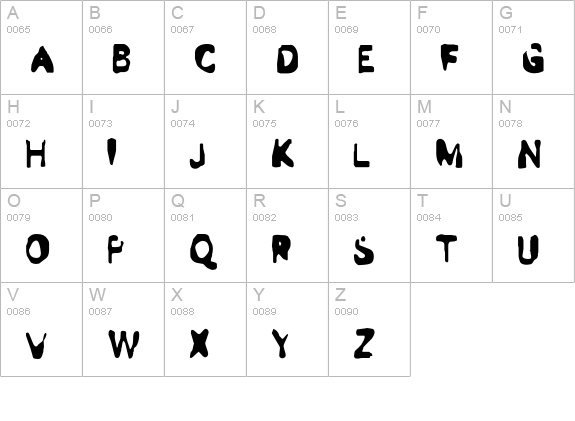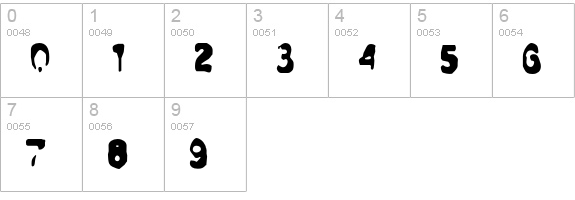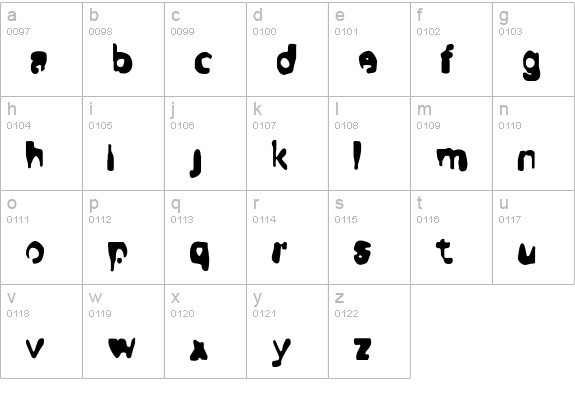
Dirty-Five Font Details
Introducing Dirty-Five font, a bold and edgy typeface that exudes a rebellious charm. With its rugged brush strokes and distorted letterforms, Dirty-Five font adds a touch of urban grit to any design project. This versatile font is perfect for creating eye-catching headlines, posters, and branding materials that demand attention. Featuring a unique blend of grunge and modern design elements, Dirty-Five font is sure to make a statement. Whether you're looking to add a touch of raw energy to your designs or create a bold visual impact, this font has got you covered. Best of all, Dirty-Five font is available for free download at FontsMarket.com. So go ahead and unleash your creativity with this stunning typeface that's as bold and daring as you are.